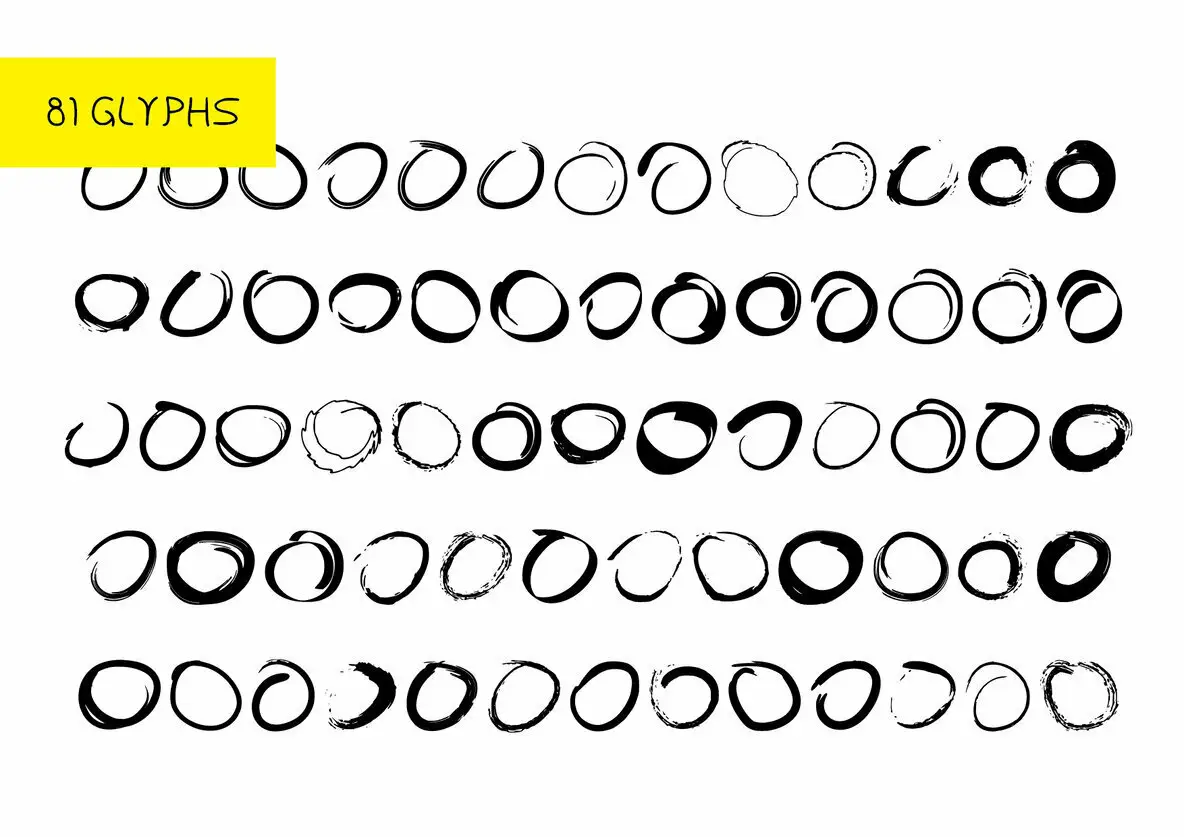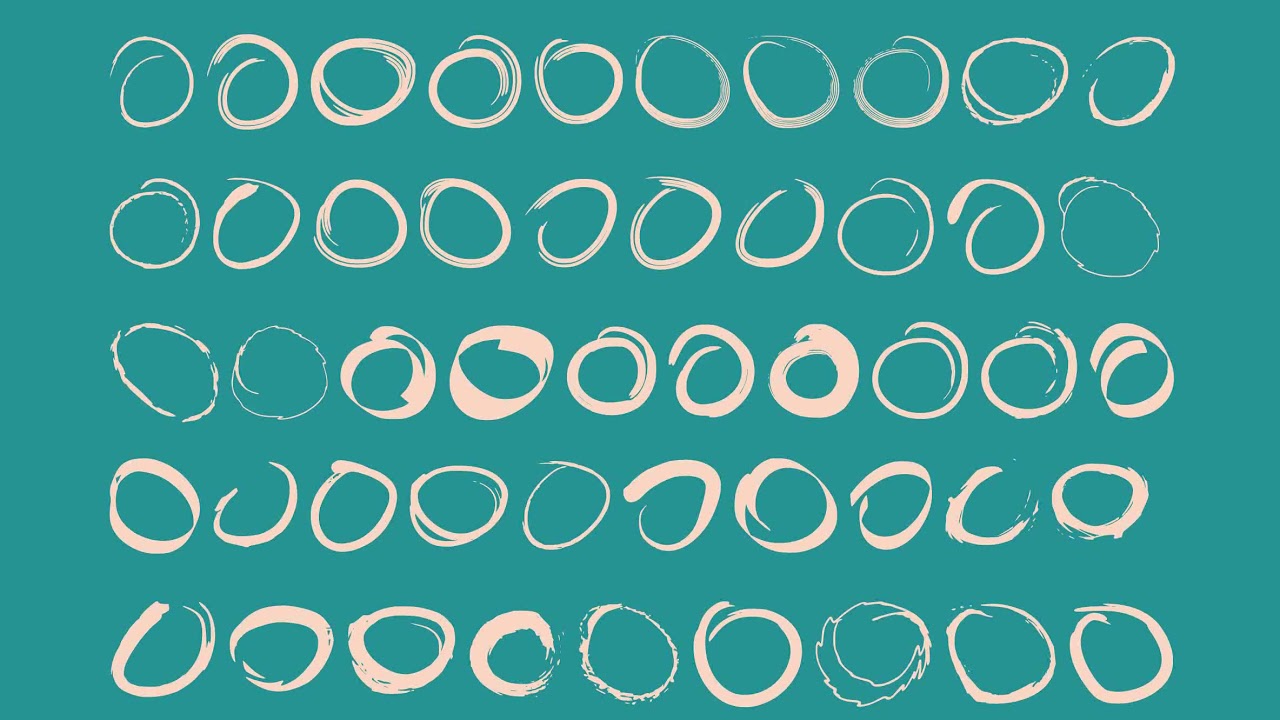
Bm Graphics Circles Font Fontpath Bm graphics circles v2 is a stunning dingbats font that combines 81 glyphs. use it for any design project that requires a hand drawn look and feel, there are so many to choose from!. Download bm graphics circles v2 font at youworkforthem ywft.us 27f7c1584bm graphics circles v2 is a stunning dingbats font that combines 81 glyphs .
Bm Graphics Circles V2 Font Fontpath Bm graphics circles v2 is a stunning dingbats font that combines 81 glyphs. use it for any design project that requires a hand drawn look and feel, there are so many to choose from!. A set of 75 different glyphs in a massive range of styles and designs. great for quickly adding graphics to a design or line of text. export to create icons, crafts and more!.